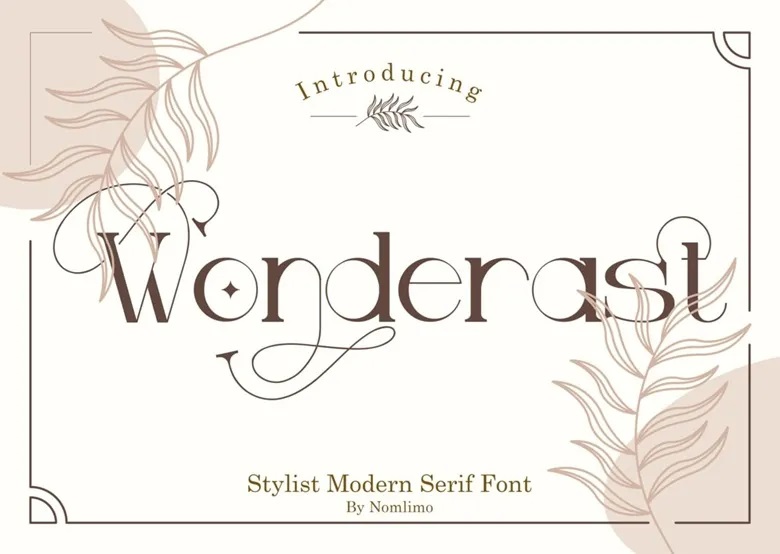
Wonderast Font
Wonderast is a stylish modern serif font that represents the modern elegance. Since this typeface has a simple and tidy appearance, it appears elegant and timeless. Created and designed by professional designers, Wonderast is sure to complement any of your important projects, bringing a polished touch into your designs.
Wonderast Serif Font